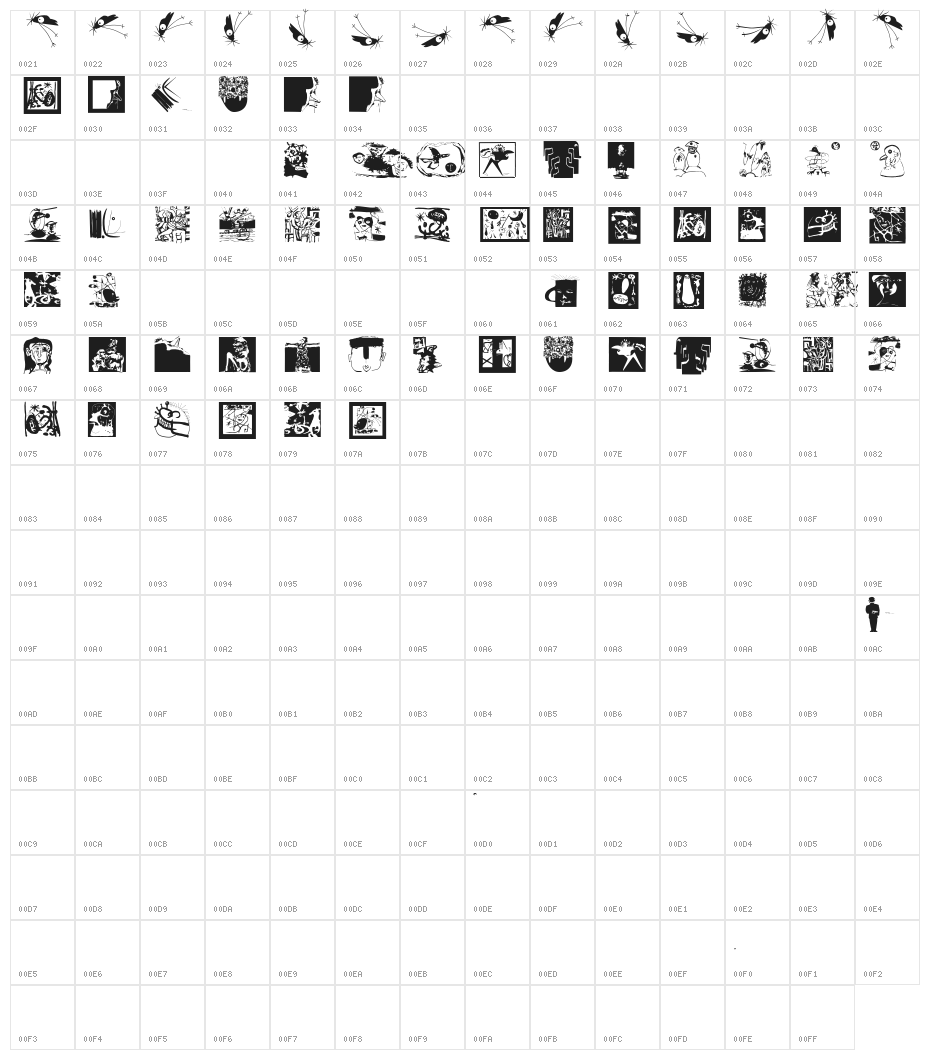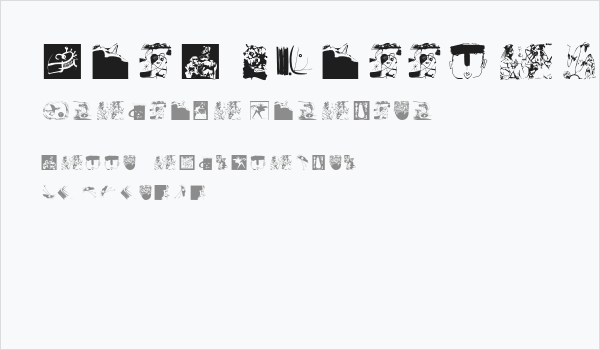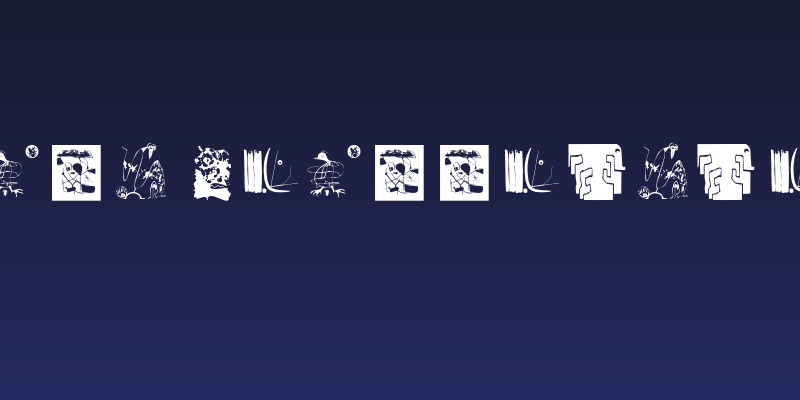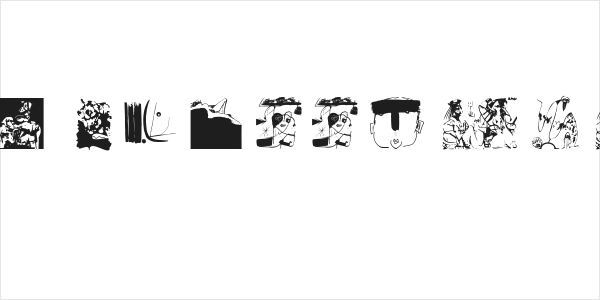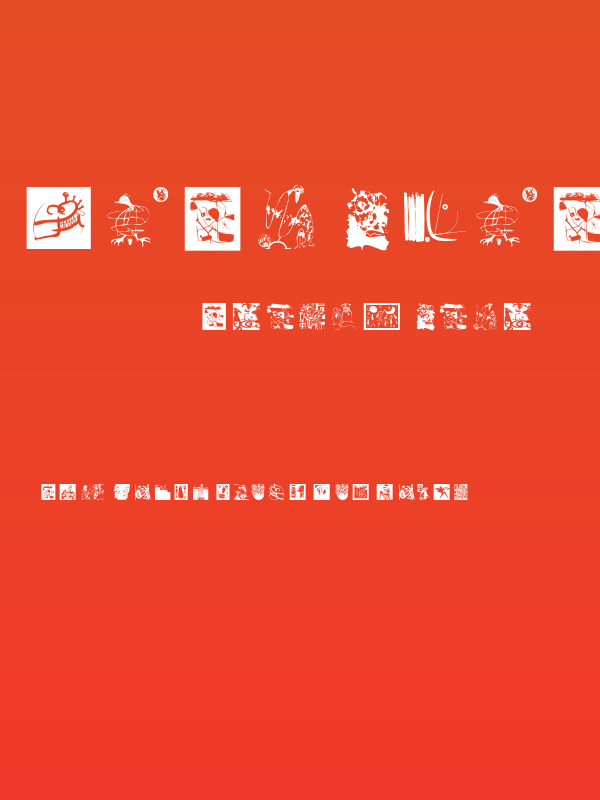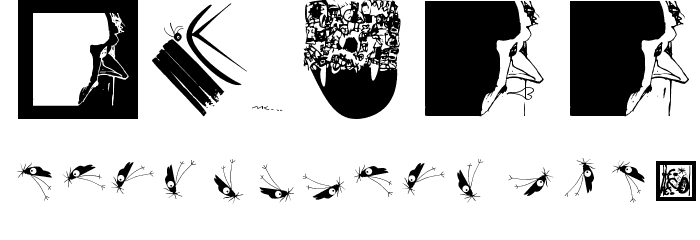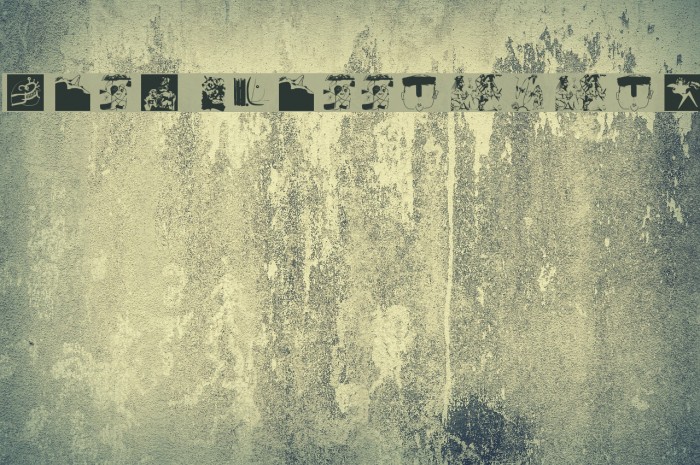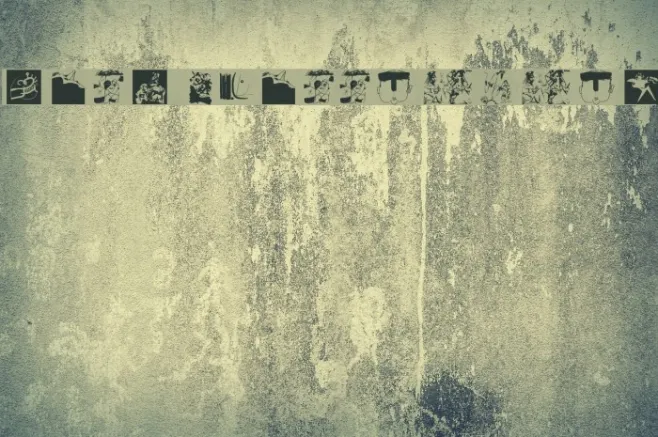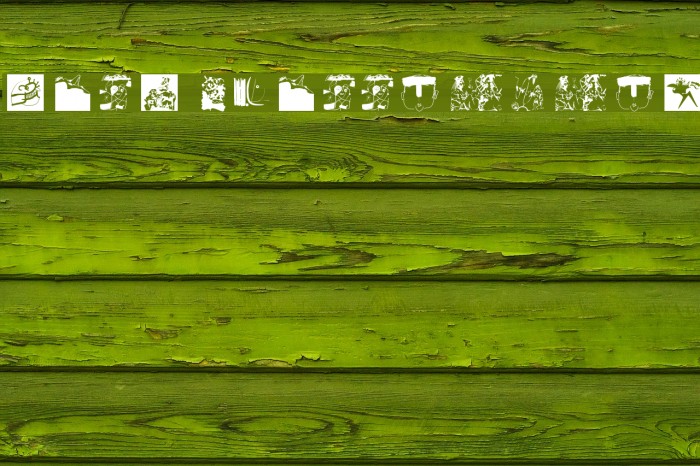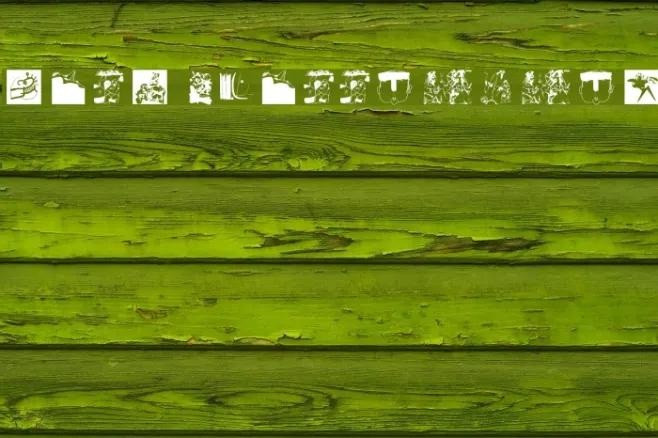
WithALittleHelp Font
WithALittleHelp Description
This font is a highly decorative and artistic collection of characters, each uniquely illustrated with intricate and whimsical designs. The characters are not traditional letters but rather creative illustrations that convey a playful and imaginative style. Each character is enclosed in a square, adding a uniformity to the otherwise eclectic designs. The artwork within each character varies greatly, featuring abstract shapes, cartoonish figures, and surreal elements, making it suitable for projects that require a touch of creativity and humor.
| Use Case | Logos, Artistic projects, Posters |
| Proposed Projects | Ideal for creative projects such as children's books, artistic posters, unique branding materials, or any design that benefits from a playful and imaginative touch. |